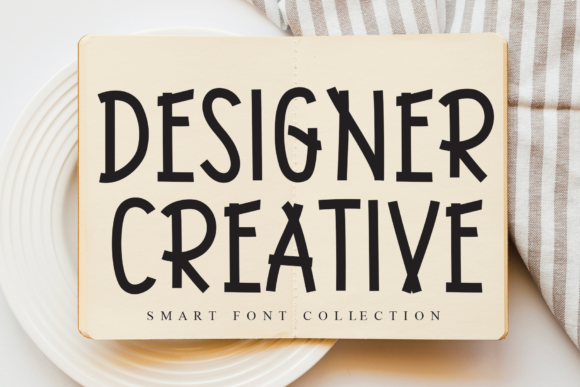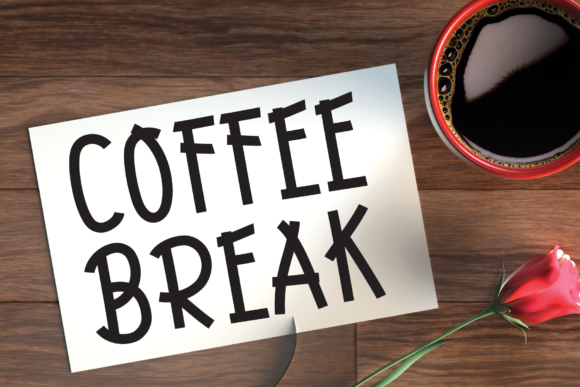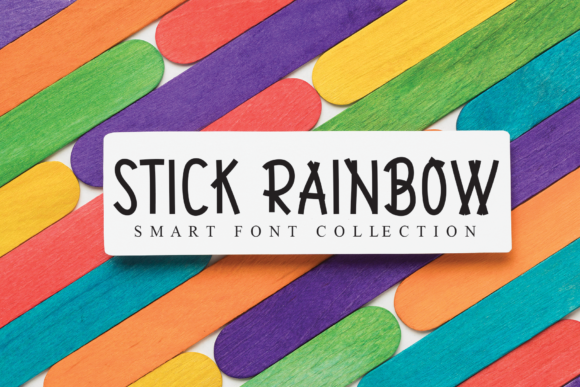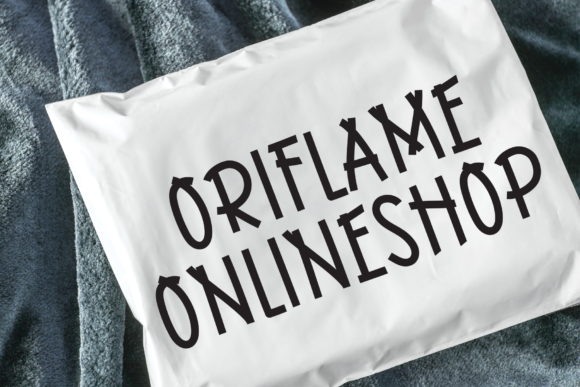
Unleash Your Creativity with Hayamury Font: The Ultimate Display Font
Hayamury is an incredibly unique display font that has been masterfully designed to become a true favorite among designers and crafters. With its distinctive style and versatility, this font has the potential to bring each of your creative ideas to the highest level. In this article, we’ll dive into the world of Hayamury Font, exploring its features, benefits, and uses, and why it’s a must-have for any creative project.
What Makes Hayamury Font So Special?
Hayamury Font is a one-of-a-kind display font that boasts a unique and captivating design. Its distinctive style is characterized by bold lines, elegant curves, and a touch of sophistication. This font is perfect for designers and crafters looking to add a personal touch to their projects, whether it’s a logo, branding, packaging, or social media graphics.
Key Features of Hayamury Font
- Unique Design: Hayamury Font features a distinctive design that sets it apart from other fonts.
- Versatility: This font is highly versatile and can be used for a wide range of creative projects.
- Elegant and Sophisticated: Hayamury Font exudes elegance and sophistication, making it perfect for high-end branding and design projects.
- Easy to Read: Despite its bold and decorative style, Hayamury Font is easy to read and understand.
Benefits of Using Hayamury Font
So, why should you choose Hayamury Font for your creative projects? Here are just a few benefits of using this incredible display font:
- Stand Out from the Crowd: With Hayamury Font, you can create unique and eye-catching designs that set you apart from the competition.
- Enhance Your Brand: This font is perfect for branding and can help you create a strong and recognizable identity for your business.
- Boost Creativity: Hayamury Font is designed to inspire creativity and help you bring your ideas to life.
- Save Time: With its ease of use and versatility, Hayamury Font can save you time and effort in your design projects.
Who Can Benefit from Hayamury Font?
Hayamury Font is perfect for a wide range of designers and crafters, including:
- Graphic Designers: This font is ideal for graphic designers looking to create unique and captivating designs for their clients.
- Branding Experts: Hayamury Font is perfect for branding experts looking to create a strong and recognizable identity for their clients.
- Crafters: This font is also great for crafters who want to add a personal touch to their handmade products.
- Social Media Influencers: Hayamury Font is perfect for social media influencers looking to create eye-catching graphics and posts.
- Pair it with Other Fonts: Hayamury Font pairs well with other fonts, so feel free to experiment with different combinations.
- Use it for Headings: This font is perfect for headings and titles, so use it to add a touch of elegance and sophistication to your designs.
- Experiment with Colors: Hayamury Font looks great in a variety of colors, so don’t be afraid to experiment and find the perfect hue for your design.
Hayamury Font is an incredibly unique display font that has the potential to bring each of your creative ideas to the highest level. With its distinctive style, versatility, and ease of use, this font is perfect for designers and crafters looking to add a personal touch to their projects. Whether you’re a graphic designer, branding expert, crafter, or social media influencer, Hayamury Font is a must-have for any creative project.